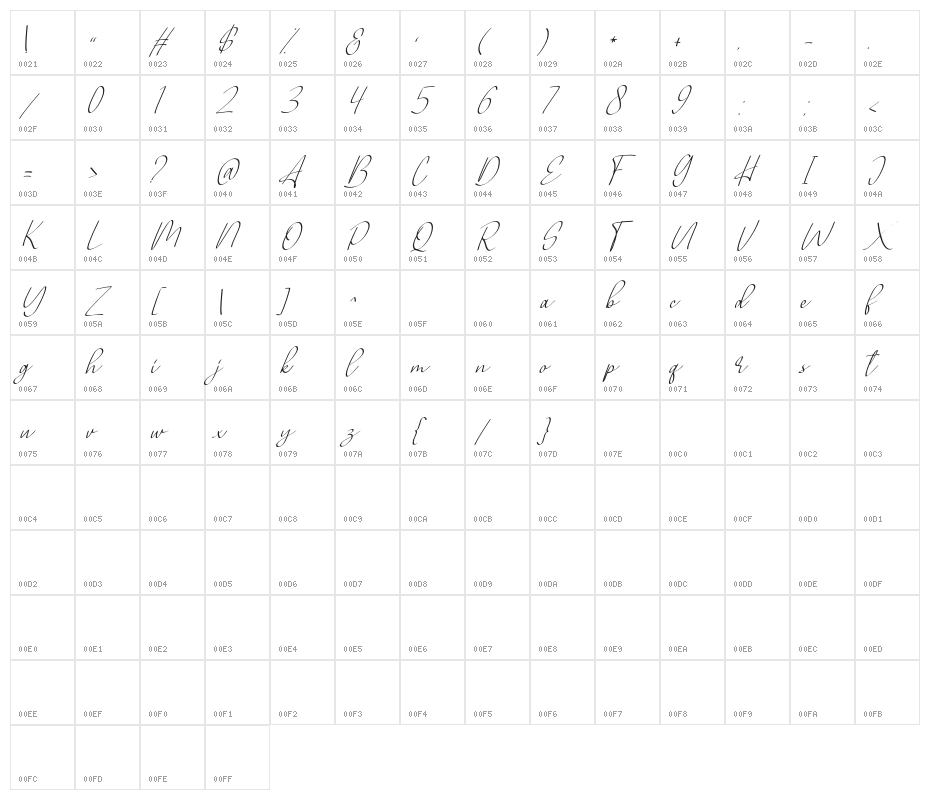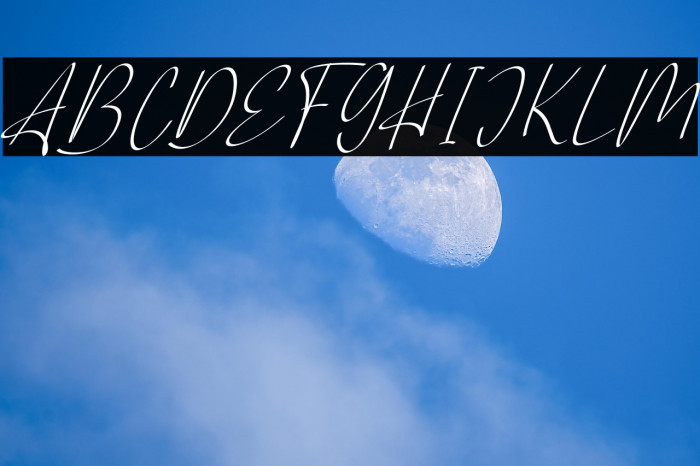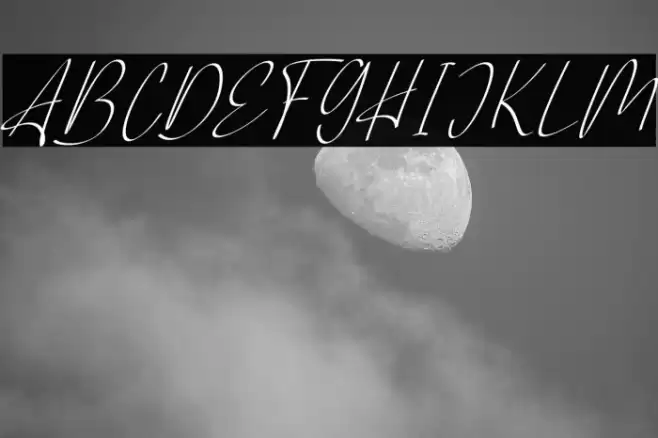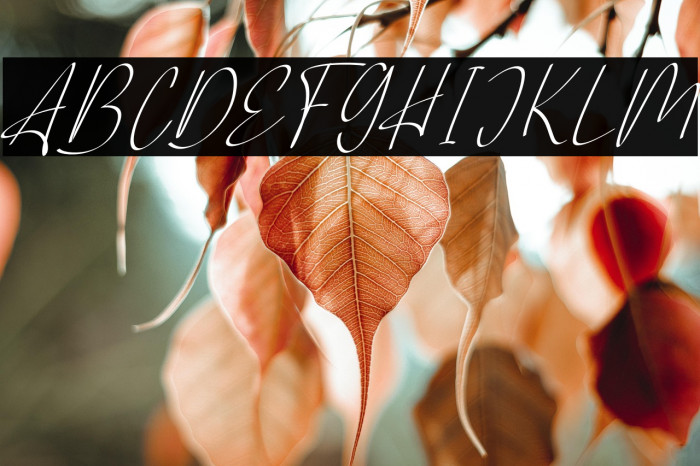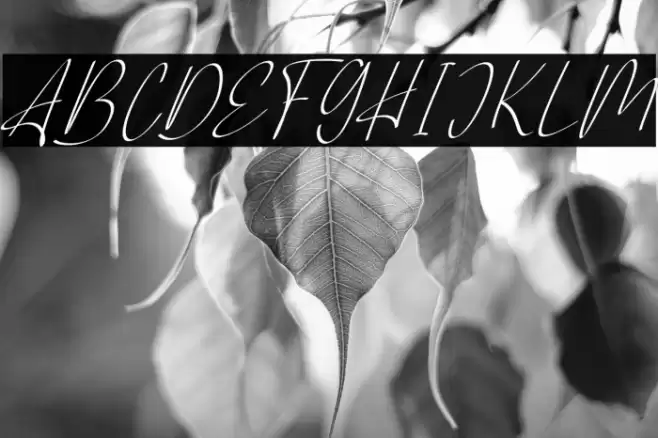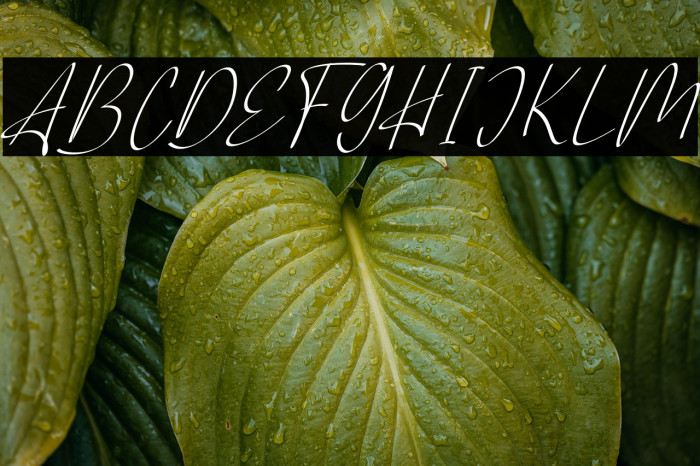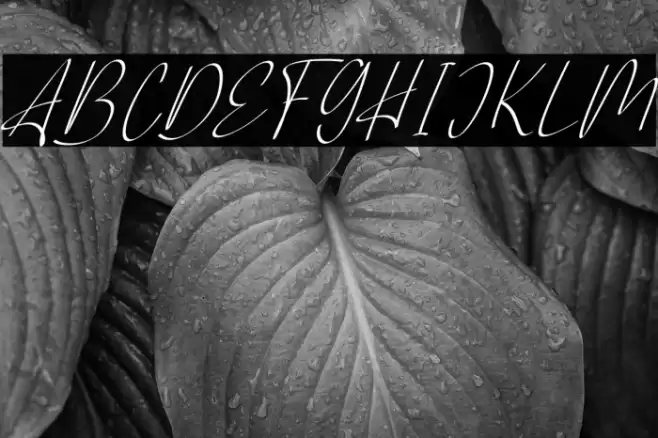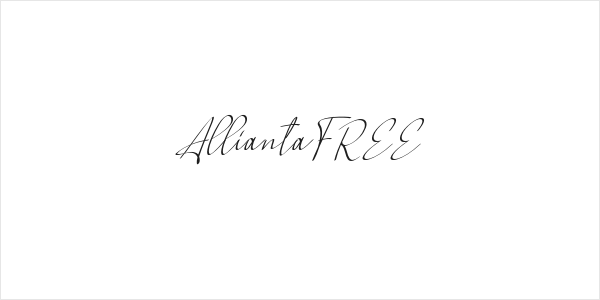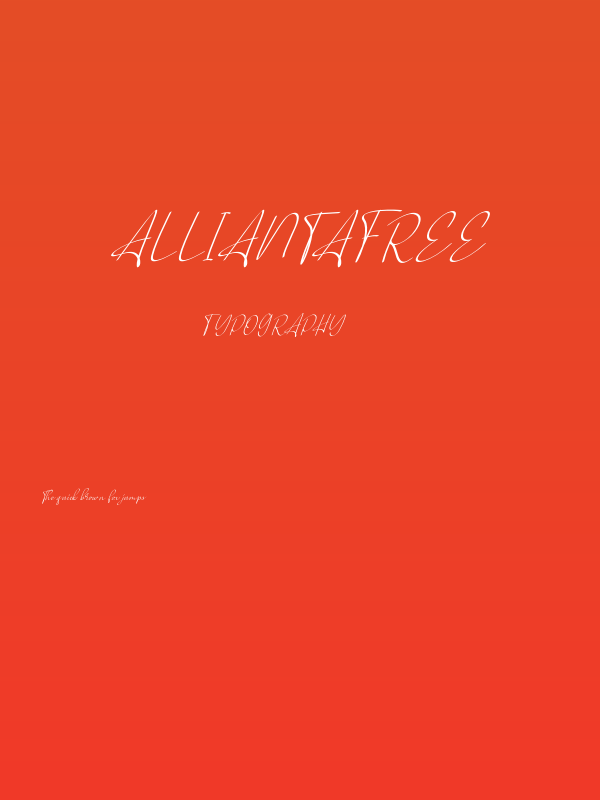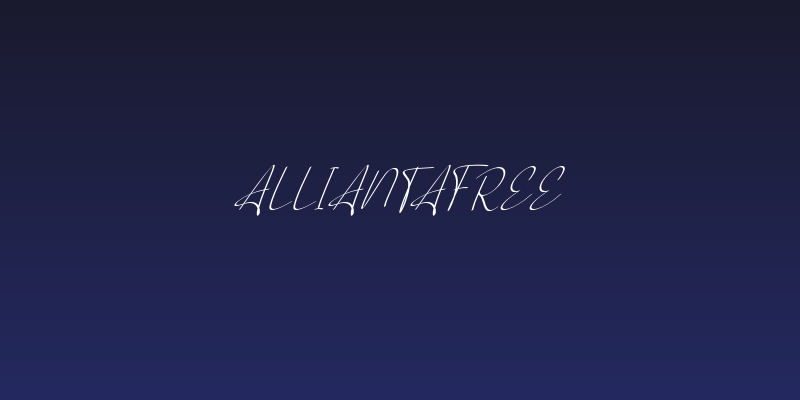
AlliantaFREE Font
AlliantaFREE Description
This elegant script font features fluid, cursive strokes that convey a sense of sophistication and grace. The uppercase letters are tall and slightly slanted, with sweeping curves and delicate flourishes that add a touch of drama. The lowercase characters maintain a consistent flow, with smooth connections between each letter, enhancing readability while preserving the font's artistic flair. Numbers and special characters are designed with the same attention to detail, ensuring a cohesive look across all text elements. The font's overall appearance is both stylish and timeless, making it suitable for a variety of design applications.